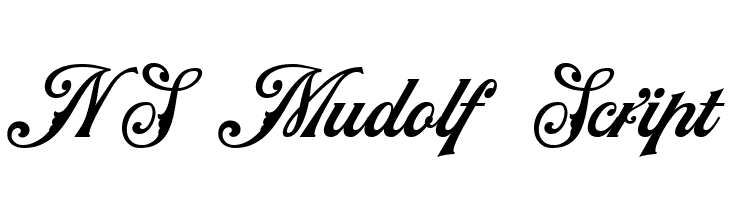
An elegant script font with ornate flourishes and a luxurious feel.
A bold, serif font with strong, angular serifs and a dynamic presence.
A playful, handwritten font with a lively and energetic style.
A bold, brushstroke-style font with a dynamic and artistic appearance.
A playful, decorative font with floral accents on bold, rounded characters.
An ornate and decorative font with intricate swirls and flourishes.
A bold, playful handwritten font with rounded strokes and smooth curves.
A bold, italic, hollow font with a modern and dynamic style.